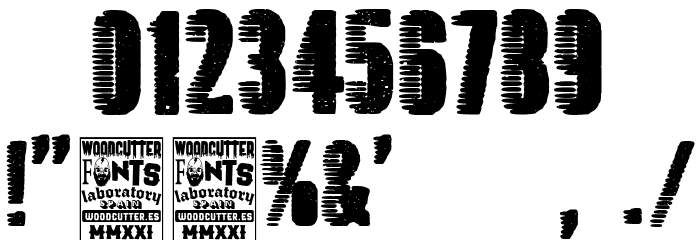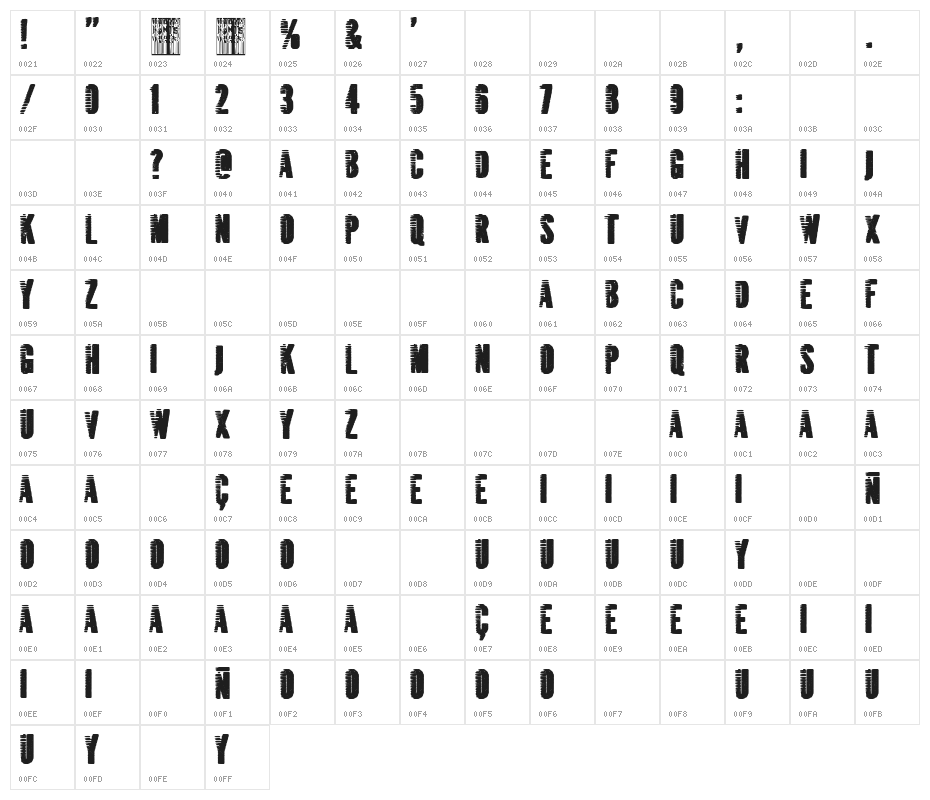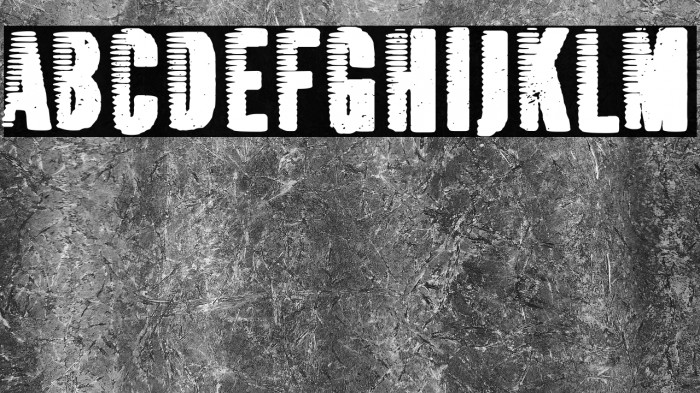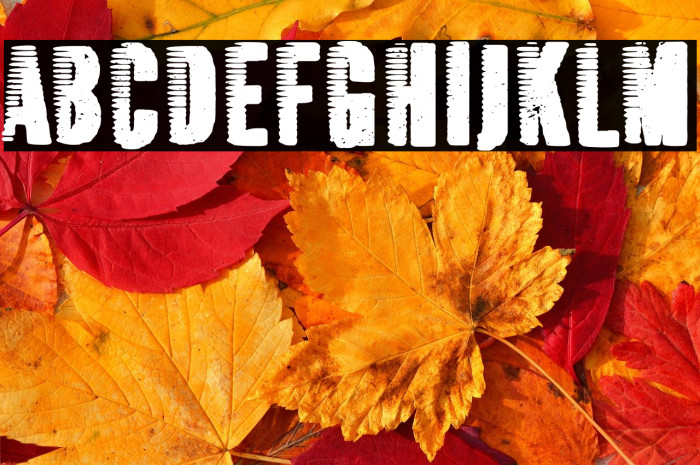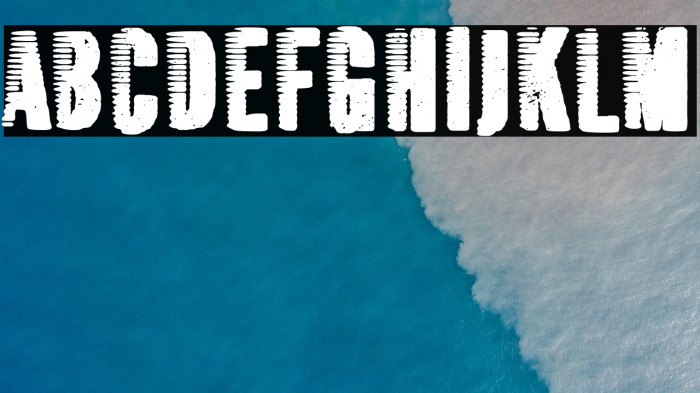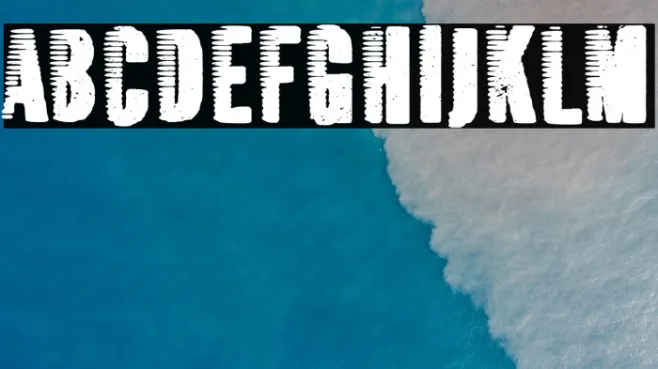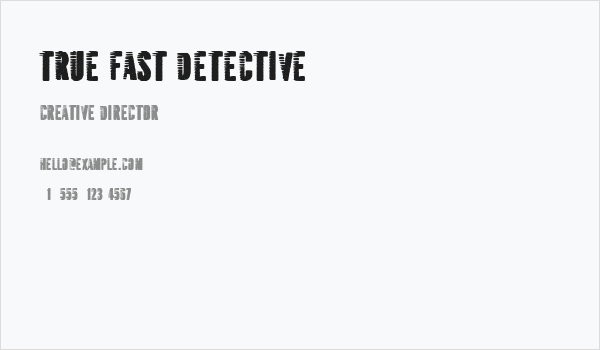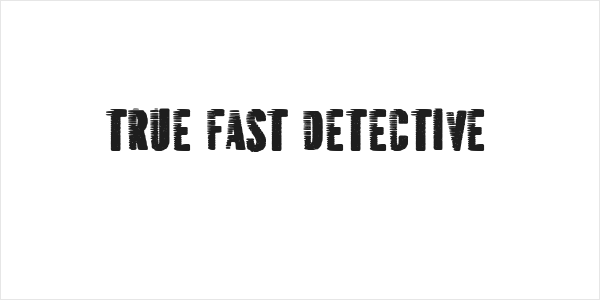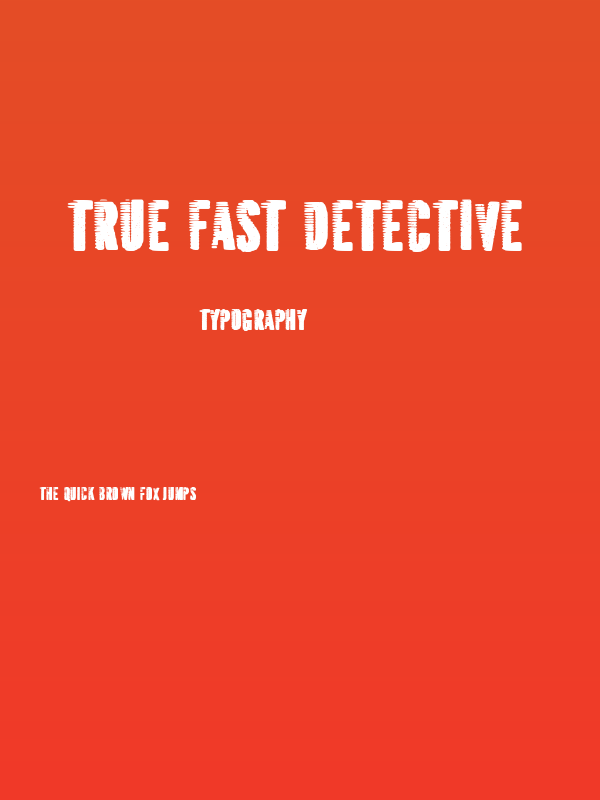
True Fast detective Font
True Fast detective Description
This font features a bold and rugged design, characterized by its distressed and textured appearance. The letters are thick and heavily weighted, with a unique pattern that gives them a worn, vintage look. The uppercase and lowercase letters maintain a consistent style, while the numbers and special characters follow suit, ensuring a cohesive appearance across all glyphs. The font's boldness and texture make it stand out, ideal for projects that require a strong visual impact.
| Proposed Projects | Ideal for poster designs, branding projects, album covers, and any creative work that requires a bold, vintage aesthetic. |